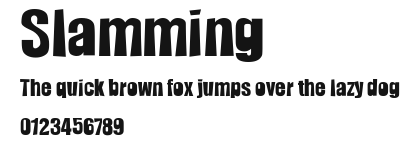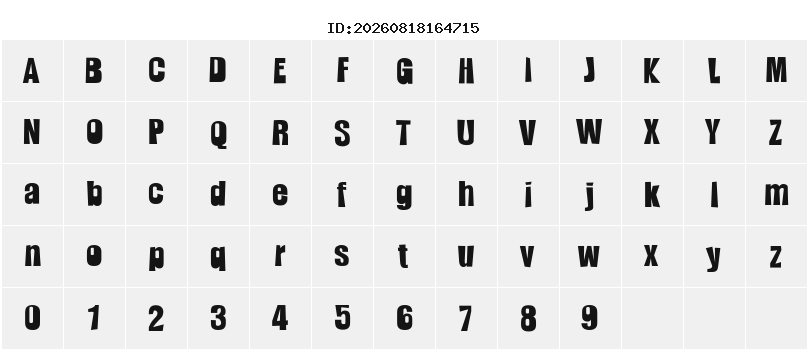
• Font Name: Slamming
• Font ID: Slamming - 1998
• Full Font Name: Slamming
• Version: 1998; 1.0, initial release
• PostScript Name: Slamming
• Copyright: Copyright (c) Mike Hind, StickFonts, 1998. All rights reserved.
About Slamming.ttf
Slamming.ttf is a modern, elegant sans-serif font designed for ultimate readability and visual harmony. Perfect for branding, headlines, web design, and print materials.